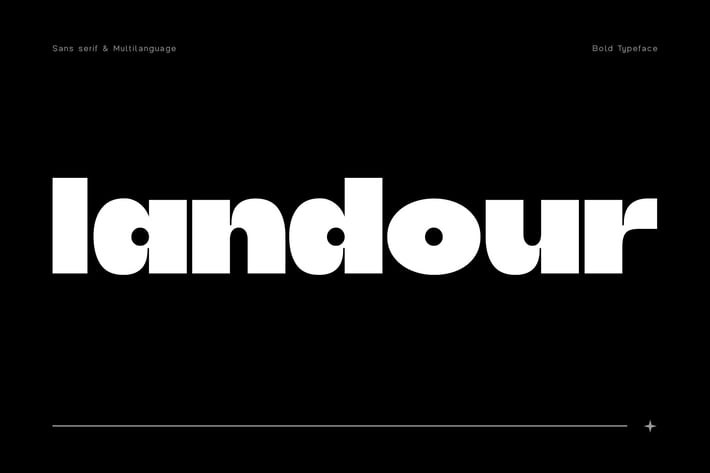
Landour Typeface
Introducing Landour Typeface is a new generation Display Typeface. Landour Typeface created with the vision of to attract the audience to your brand. The finest details of this typeface are methodically and mathematically created. Landour Typeface is created with all the tasks of a corporate font and also for the usage in a variety of projects, including branding, logos, titles, headlines, posters, screens, display, digital ads, and everything else.